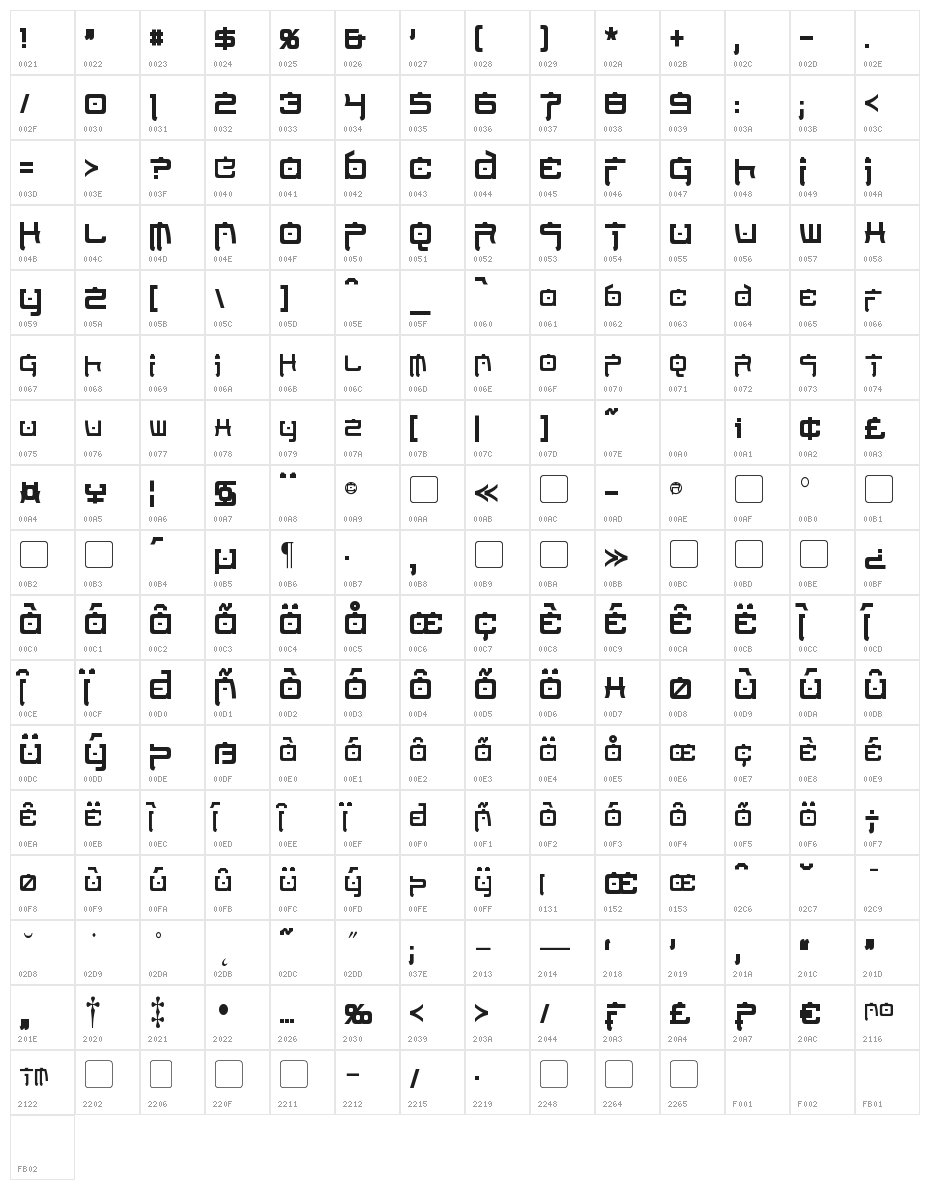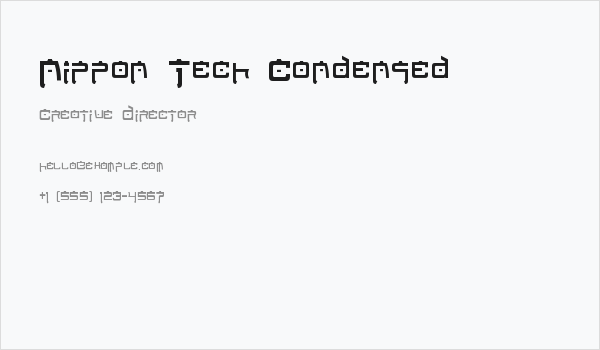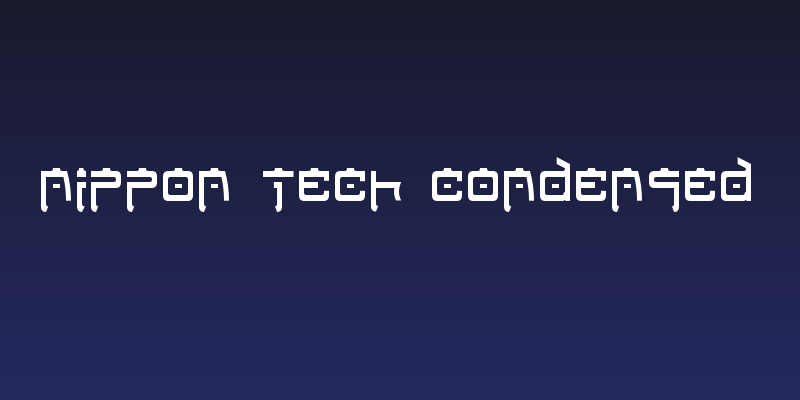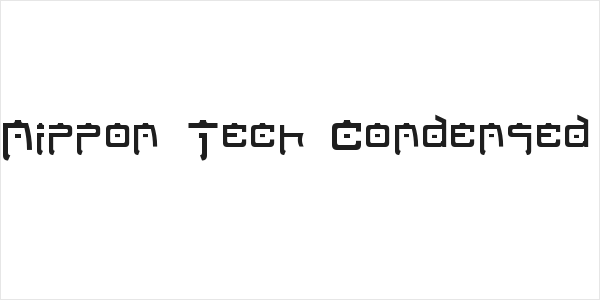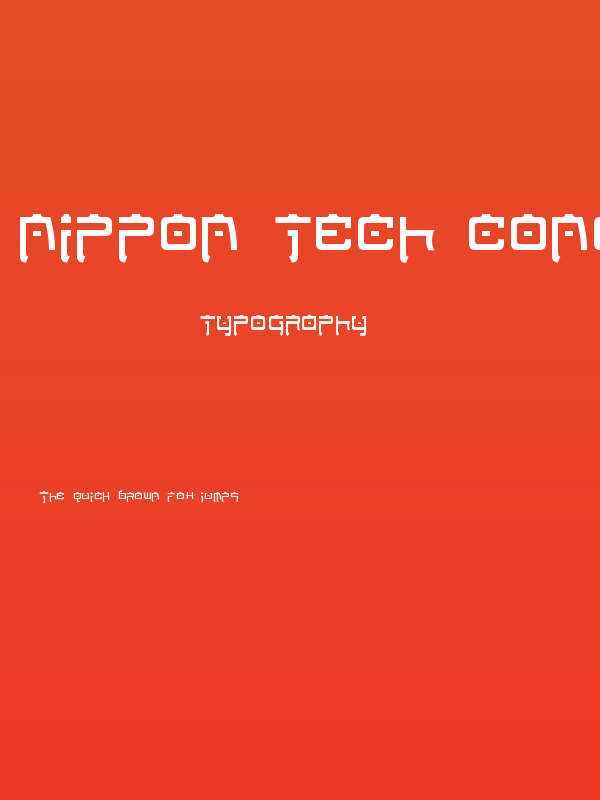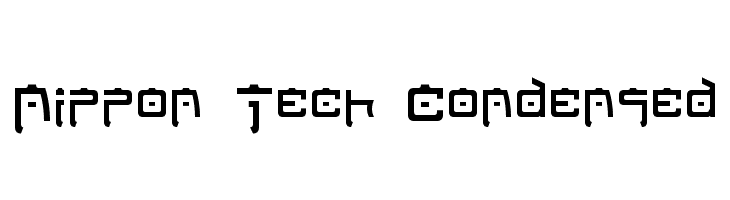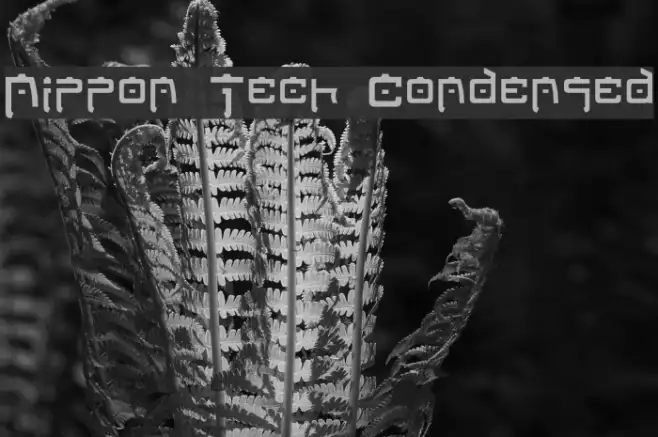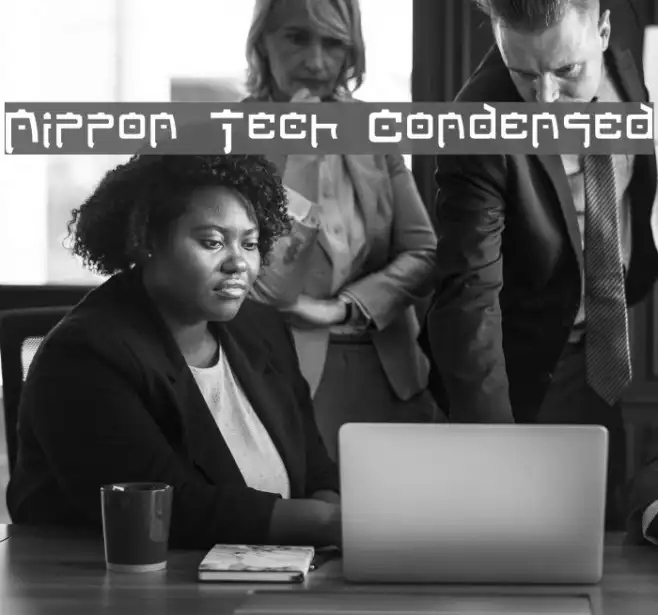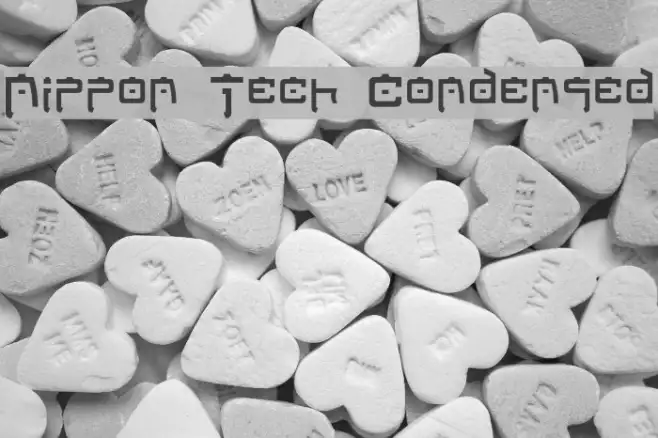
Nippon Tech Condensed Font
Nippon Tech Condensed Description
This font exhibits a futuristic and technological design, characterized by its angular and geometric shapes. The letters are condensed, giving a compact appearance, while maintaining readability. The strokes are consistent in thickness, providing a uniform look across all characters. The style is reminiscent of digital or sci-fi themes, making it suitable for projects that require a modern and edgy aesthetic. The numbers and special characters follow the same design principles, ensuring cohesion throughout the typeface.